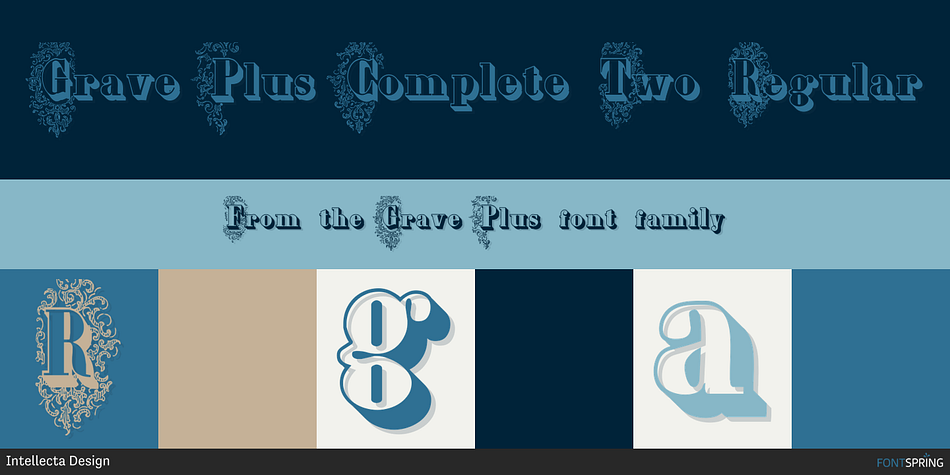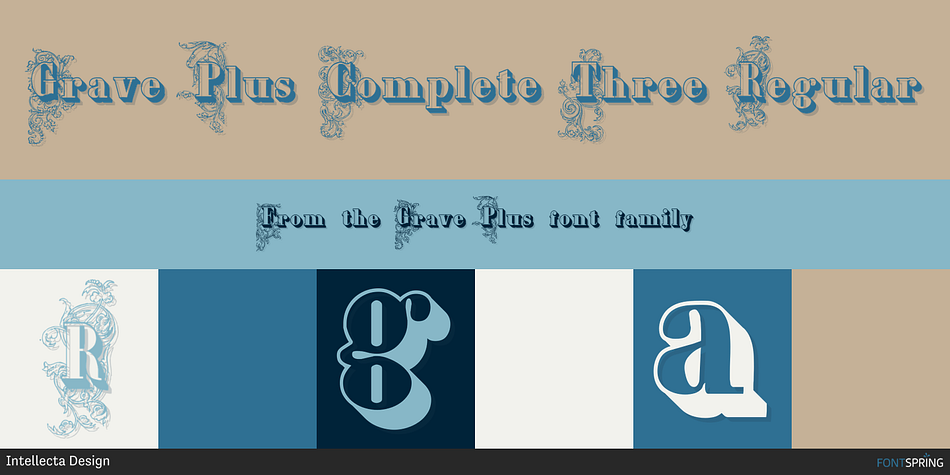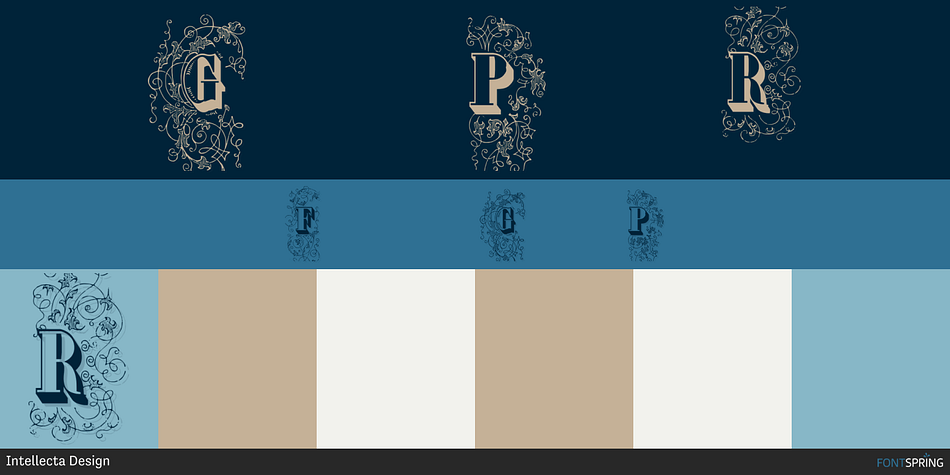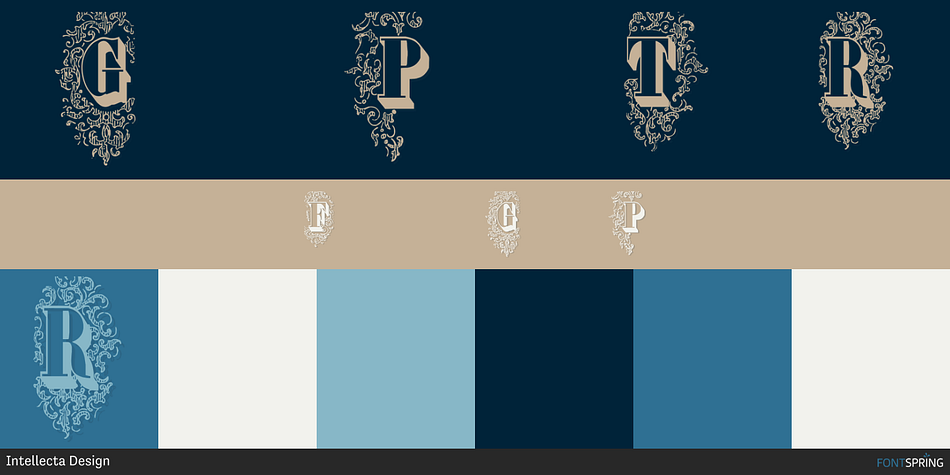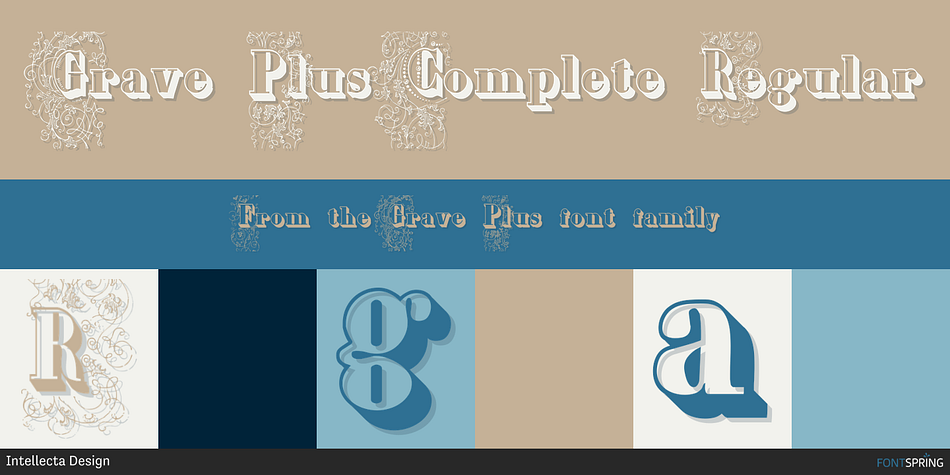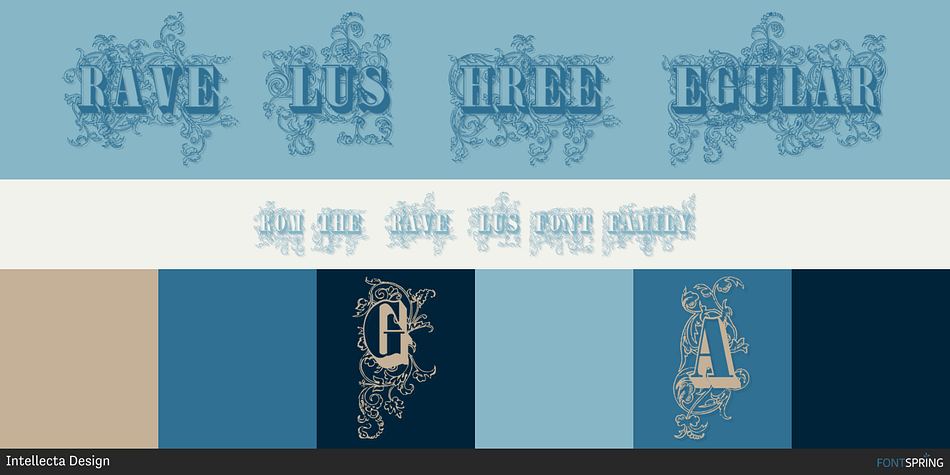
GRAVE PLUS
Designed by Paulo W, Grave Plus is a monograms font family. This typeface has six styles and was published by Intellecta Design.
Grave is a Intellecta’s best seller, a classic font design remastered, distressed and antique, merging the bodonian style with tendrils and victorian ornaments.
Ideal to use in in display purposes for a stylized type design. Here you get Grave Plus, where six different fonts has different styles of victorian fleurons and ornaments merging with a bodonian shaded typeface in great style.